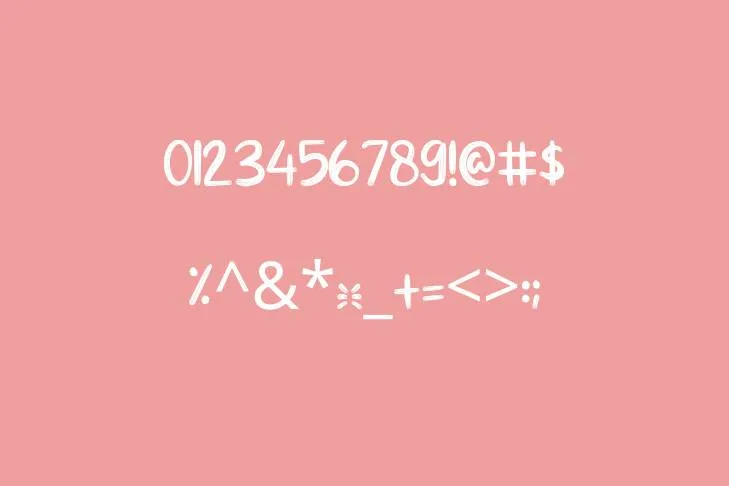
Today, I’ll discuss a fabulous typeface that has transformed the graphic design world with its introduction. The Baby Blue Font is a brush font that was created in 2017 by Jim Lyles and Brian J. Bonislawsky. The typeface was developed to be employed in baby shower invites and other related documents. It was entitled after the well-known Bad Finger song “Baby Blue.” The typeface has many distinctive characteristics, including rounded edges and a delicate, smooth feel that provides the project with an astounding impression.
The typeface has several distinctive characteristics, like curves and a delicate, gentle appearance. It is also one of the atypical typefaces that supports the letters of the Cyrillic alphabet. The topmost letters of this font have a fascinating characteristic that provides it with a distinctive and whimsical appearance: they are a little bit wider than the bottom-lined characters. The Font supports a large number of languages and could be obtained in either regular or bold styles.
The Font’s versatility has contributed to its rising popularity in recent years. It can be utilized for many different things, such as body text, headlines, as well as trademarks. The Canva program makes it simple to use this typeface family to create stunning themes or emblems.
Additionally, it can be tweaked to produce graphics with a specific theme for occasions like baby showers, bridal showers, wedding ceremonies, and so forth. Even you may use this typeface to plan marketing campaigns, promotional events, and other business-related tasks. Due to its breathtaking outlook, it will undoubtedly elevate your company to a superior level.
Baby Blue Font Combinations
You can employ several other typefaces in place of this font. The alternatives of this font are available having similar features and attributes. The fonts are listed below:
Font Details
Name | Baby Blue Font |
Style | Brush |
Designer | Brian J. Bonislawsky |
Baby Blue Font Pairing With Other Fonts
Some fonts can create a fine combination with the Baby Blue typeface and can complete the look of your project. Baby Blue font and Helvetica form an iconic blend and they both produce a contemporary and innovative feeling when employed for branding campaigns. Moreover, the Playfair Display and this exquisite typeface give a pinch of fun and humor to designs projected using this combination.
What is the type of Baby Blue font?
The Baby Blue Font is a brush font that was created in 2017 by Jim Lyles and Brian J. Bonislawsky. The typeface was developed to be employed in baby shower invites and other related documents. It was entitled after the well-known Bad Finger song “Baby Blue.”
Which font makes a perfect combination with the Baby Blue font?
Baby Blue typeface and Helvetica form an iconic blend and they both produce a contemporary and innovative feeling when employed for branding campaigns.
Is there any font similar to the Baby Blue font?
You can employ several other typefaces in place of this font. The alternatives of this font are available having similar features and attributes. Hello Baby and Baby cuttie fonts are closest to this font.